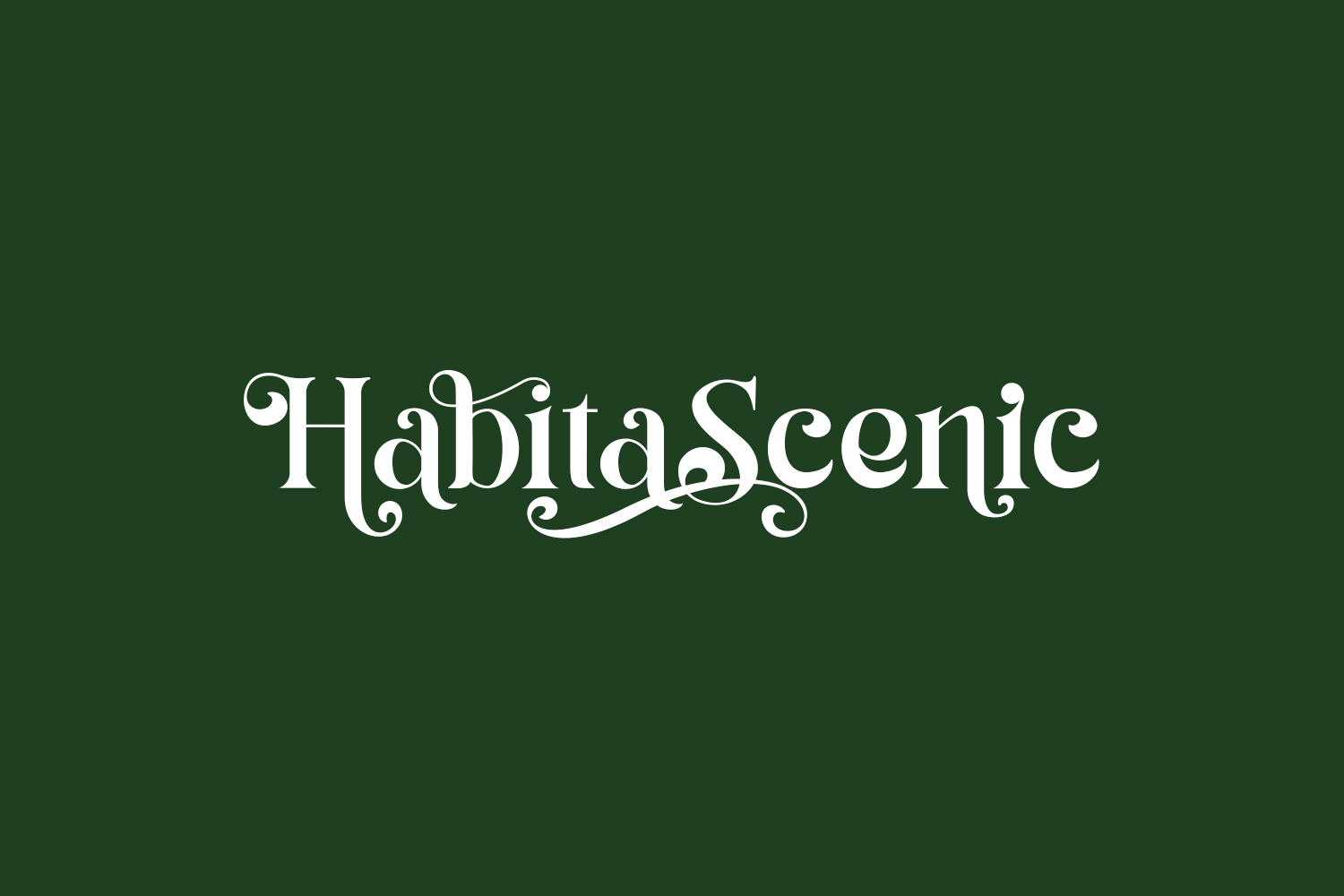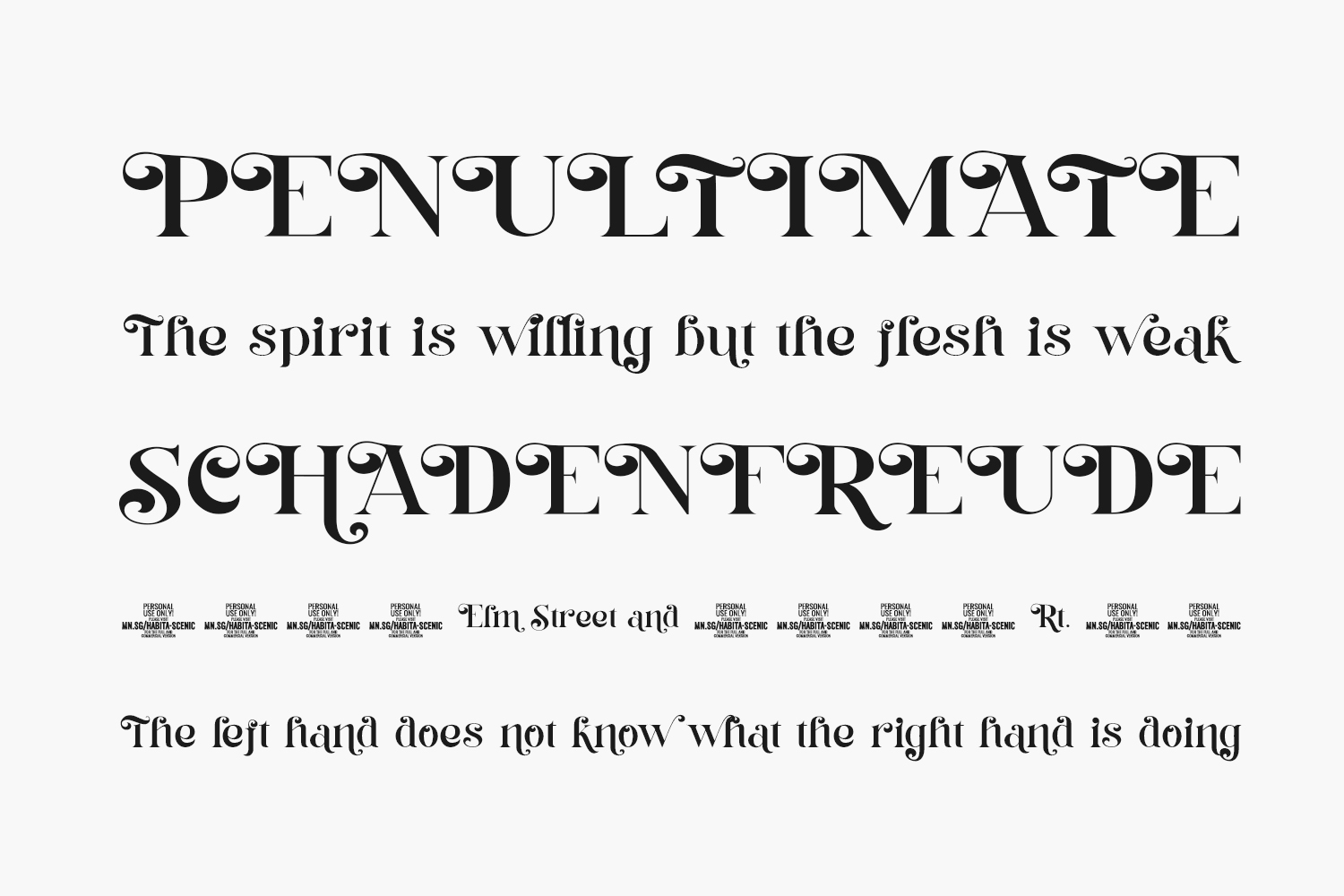
Habita Scenic Free Font, is the free font that will transport you back in time to the retro era. Its elegant and intricate details exude a sense of sophistication, while its vintage flair adds a touch of nostalgia to your designs.
The curves and swirls of Habita Scenic’s letters are reminiscent of the ornate typography of the 1920s and 30s. Yet, it has been updated with a modern twist, making it the perfect choice for any project that requires a touch of glamour.
This font is truly scenic, with each letter acting as a picturesque view into the past. It’s the perfect choice for designing anything from invitations to posters, and even logos. Its versatility is unmatched and will elevate your project to the next level.